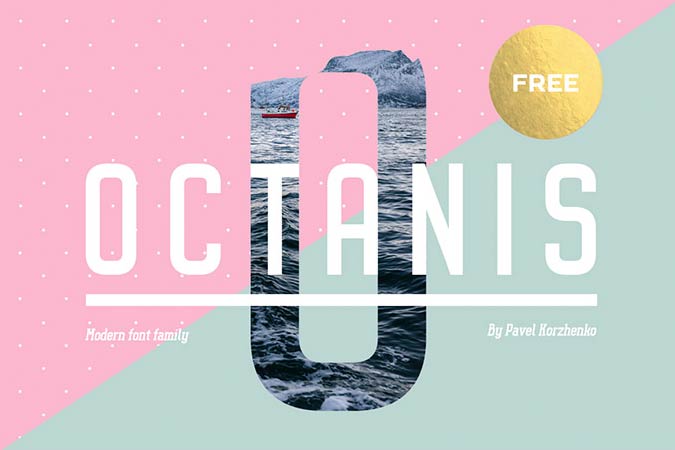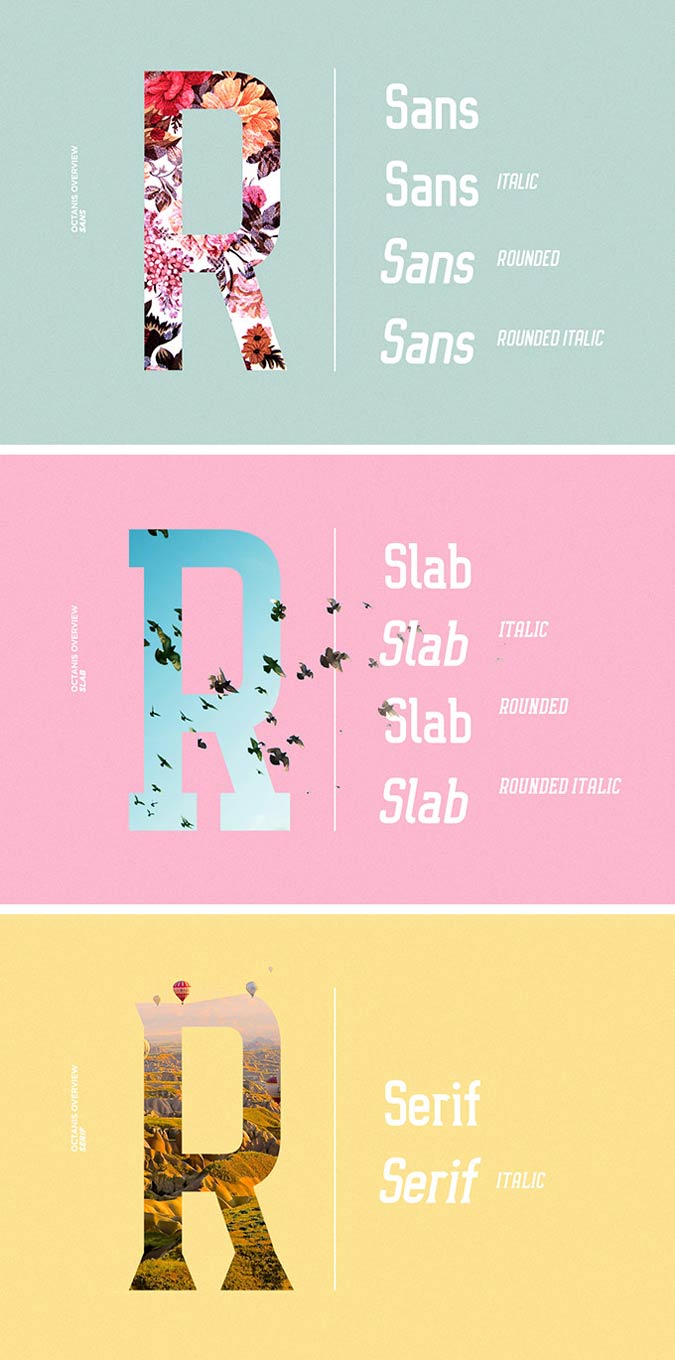
Octanis is a modern font family that comes with sans serif, serif and slab serif variants. The letter designs are condensed and bold, makes it a good font for headlines, logos, displays and more. With more than 10 styles in total, you can create something wonderful by combining the them together.
- Designer: Pavel Korzhenko
- Styles: 10
- Category: Sans Serif, Serif, Slab Serif